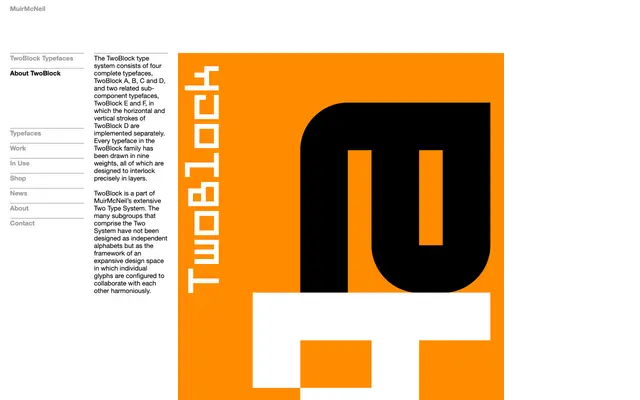
TwoBlock
A six-part modular type system drawn in nine weights per variant, engineered to interlock in layers as part of MuirMcNeil's broader Two Type System.
TwoBlock comprises four complete typefaces (A, B, C and D) alongside two sub-component variants (E and F) that separate the horizontal and vertical strokes of TwoBlock D for independent layering. All six variants share nine weights, each drawn to align precisely when overlaid, enabling dense, multi-layered compositions. The system sits within MuirMcNeil's wider Two Type System, conceived as a collaborative design space rather than a set of standalone alphabets.
TwoBlock is a layered, modular type system with geometric block construction, designed explicitly for interlocking multi-layer compositions rather than conventional text setting, placing it firmly in the display category.